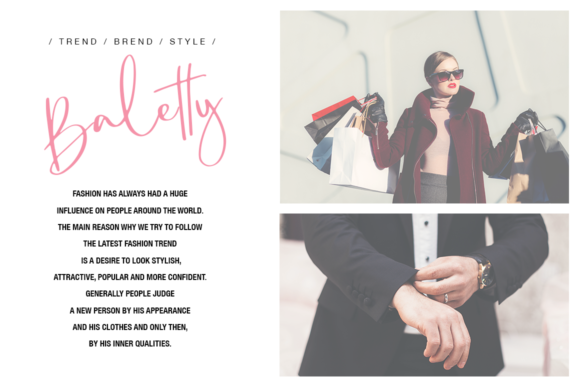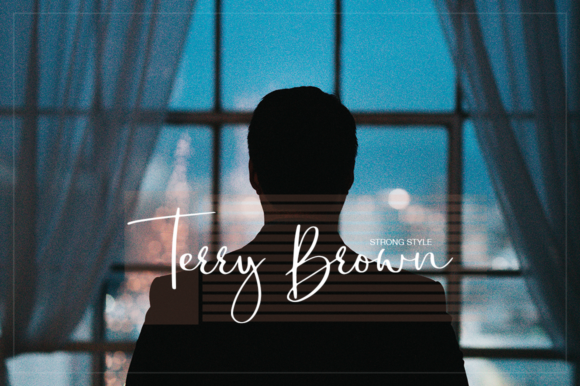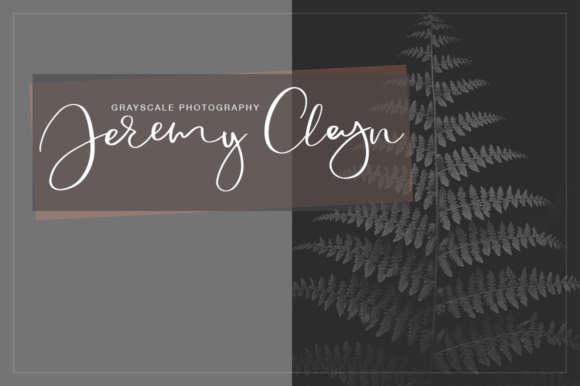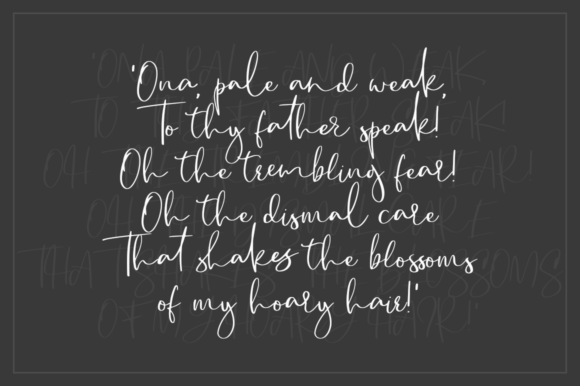
Introduction to Camsay Font
The Camsay is a new, fresh, handmade calligraphy font.
It’s very suitable for greeting cards, branding materials, business cards, quotes, posters, and more .
Key Features of Camsay Font